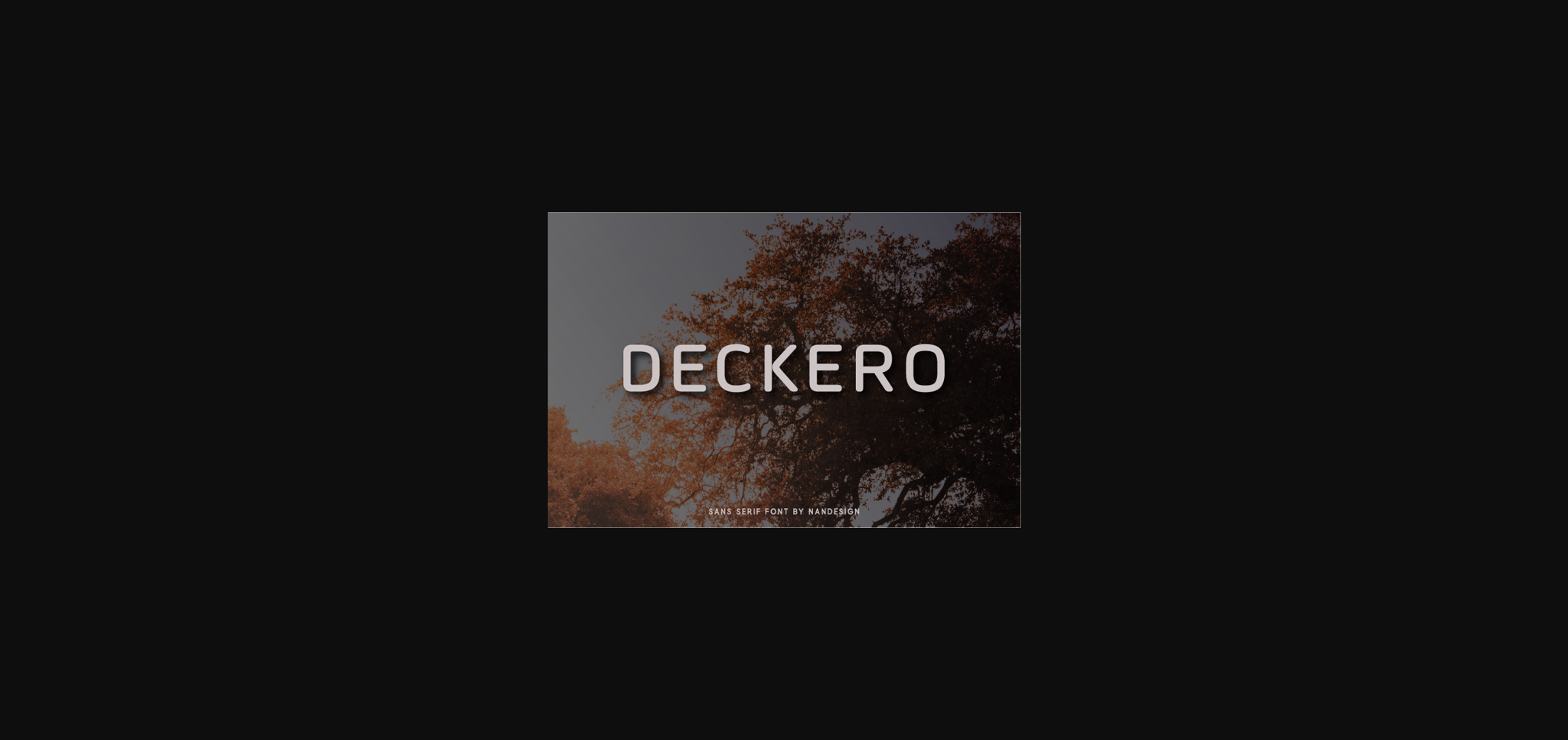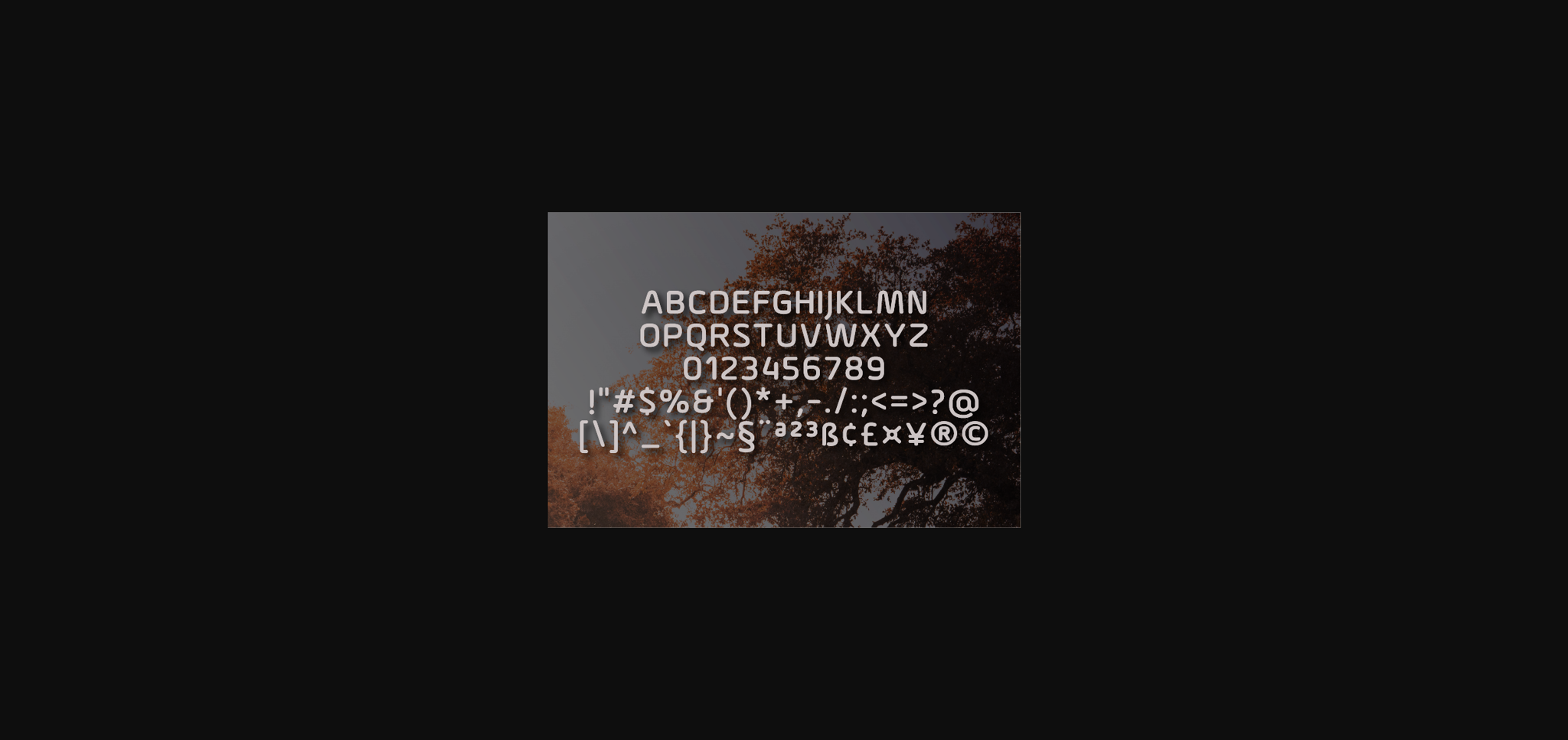
HomeSans Serif FontsDeckero Font Sans Serif Fonts Deckero Font FacebookXPinterestWhatsApp 1 of 4 ... Deckero Font Poster 2... Deckero Font Poster 3... Deckero Font Poster 4... About Deckero Font Deckero is a futuristic sans serif font. It will look particularly adept when used in logos, branding, packaging design, and much more. DOWNLOAD NOW People also explored Frothydue Font Sonata Font Coconut Font Yeriflog Rustic Market Font Retha Font Richoen Font Good Romance Font Alssential Font 398 0 TagsDeckeroDeckero Font Previous articlePartakes FontNext articleHurone Font LEAVE A REPLY Cancel reply Comment: Please enter your comment! Name:* Please enter your name here Email:* You have entered an incorrect email address! Please enter your email address here Website: Save my name, email, and website in this browser for the next time I comment. Personal Use Free Sebastopol Personal Use Free Read more about this font Autumn Flowers Font Personal Use Free Read more about this font Abberancy Personal Use Free Read more about this font Eits Personal Use Free Read more about this font BLOG How to Cut Any Font on Cricut: Convert a Font to SVG (Free) Turn any font into a clean SVG so it cuts crisp on Cricut - a quick 3-step workflow using a free font-to-SVG tool. The 10 Best Handwriting Fonts to Add Personality to Your Designs Best Fonts for YouTube Videos: Make Your Thumbnails Stand Out To increase your work productivity, choose the most readable fonts.